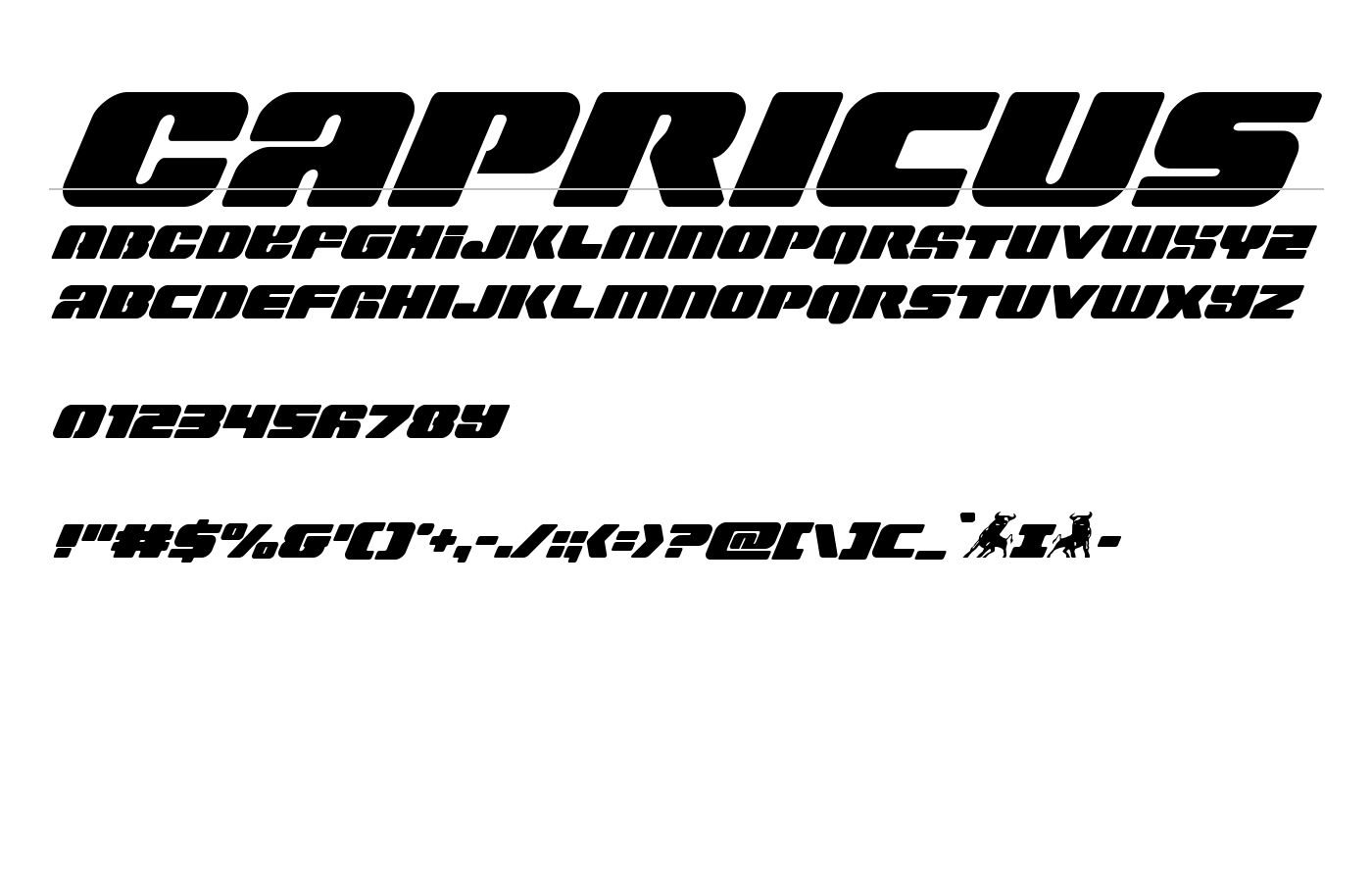
Capricus is a bold, condensed sans serif font with a dynamic, slanted style that conveys speed and energy. Its thick, blocky letterforms with rounded corners and tight spacing give it a modern, sporty look perfect for branding, logos, and headlines in active or tech-focused designs. This font works best where a strong, impactful presence is needed to grab attention quickly.
Capricus Font
About Capricus Font